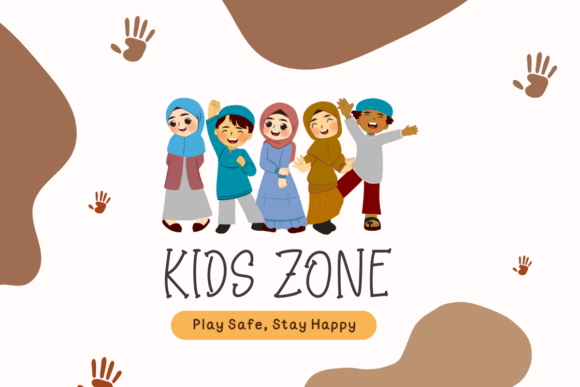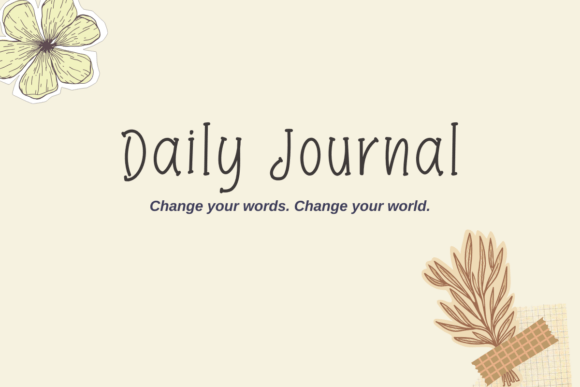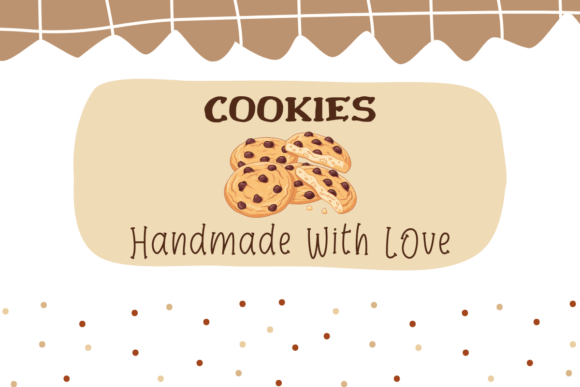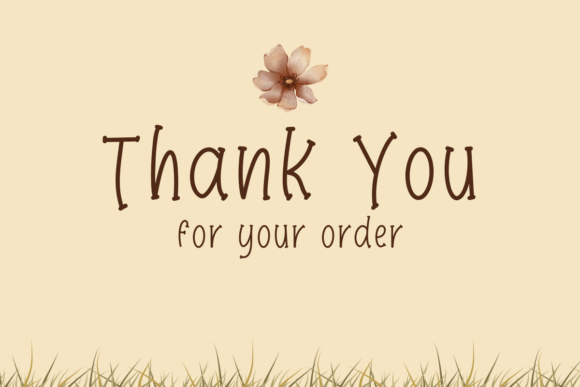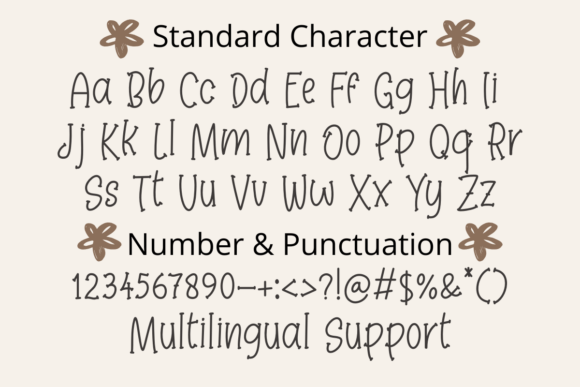
Everyday Mira Font: A Charming and Approachable Typeface for Your Designs
Are you looking for a typeface that can add a touch of warmth and friendliness to your designs? Look no further than the Everyday Mira font. This beautiful, handwritten typeface is perfect for creating a cohesive and cheerful aesthetic that makes users feel right at home. In this article, we’ll take a closer look at the Everyday Mira font and explore its features, benefits, and uses.
What is Everyday Mira Font?
Everyday Mira font is a charming, approachable typeface that perfectly captures the “everyday” beauty of neat, casual handwriting. It features slightly rounded terminals and a friendly, open structure that feels welcoming and light. This typeface is designed to be versatile and can be used for a variety of design projects, from casual branding to educational materials and playful social media content.
Key Features of Everyday Mira Font
The Everyday Mira font has several key features that make it an ideal choice for designers and crafters. Some of its notable features include:
• Charming and approachable design: The Everyday Mira font has a unique, handwritten design that is both charming and approachable.
• Slightly rounded terminals: The font features slightly rounded terminals that give it a friendly and welcoming feel.
• Open structure: The Everyday Mira font has an open structure that makes it easy to read and understand.
• Versatile: This typeface is versatile and can be used for a variety of design projects.
Benefits of Using Everyday Mira Font
There are several benefits to using the Everyday Mira font in your designs. Some of the benefits include:
• Creates a cohesive and cheerful aesthetic: The Everyday Mira font works exceptionally well with hand-drawn doodles and pastel colors to create a cohesive and cheerful aesthetic.
• Adds warmth and friendliness to designs: This typeface adds a touch of warmth and friendliness to designs, making users feel right at home.
• Ideal for casual branding and educational materials: The Everyday Mira font is ideal for casual branding, educational materials, and playful social media content.
• Works well for “how-to” guides and children’s worksheets: This typeface works exceptionally well for “how-to” guides, children’s worksheets, and friendly customer service communications.
Uses of Everyday Mira Font
The Everyday Mira font can be used for a variety of design projects, including:
• Casual branding: Use the Everyday Mira font to create a cohesive and cheerful brand identity.
• Educational materials: This typeface is ideal for educational materials, such as textbooks, worksheets, and activity sheets.
• Playful social media content: Use the Everyday Mira font to create engaging and playful social media content.
• “How-to” guides: This typeface works exceptionally well for “how-to” guides and tutorials.
• Children’s worksheets: The Everyday Mira font is ideal for children’s worksheets and activity sheets.
• Friendly customer service communications: Use this typeface to create friendly and approachable customer service communications.
Tips for Using Everyday Mira Font
Here are some tips for using the Everyday Mira font in your designs:
• Pair it with hand-drawn doodles and pastel colors: Pair the Everyday Mira font with hand-drawn doodles and pastel colors to create a cohesive and cheerful aesthetic.
• Use it for casual and playful designs: Use the Everyday Mira font for casual and playful designs, such as social media content and children’s worksheets.
• Experiment with different sizes and colors: Experiment with different sizes and colors to find the perfect combination for your design.
Author Perkasya Akram
The Everyday Mira font is a charming and approachable typeface that is perfect for adding a touch of warmth and friendliness to your designs. With its slightly rounded terminals and friendly, open structure, this typeface is ideal for casual branding, educational materials, and playful social media content. By following the tips outlined in this article, you can use the Everyday Mira font to create a cohesive and cheerful aesthetic that makes users feel right at home.